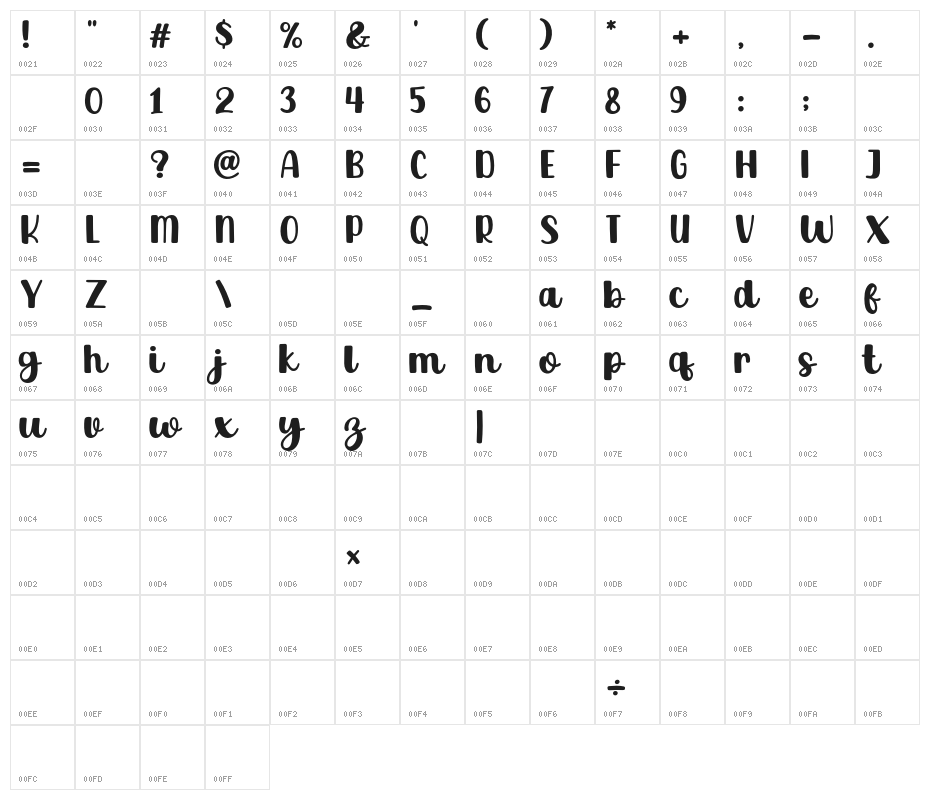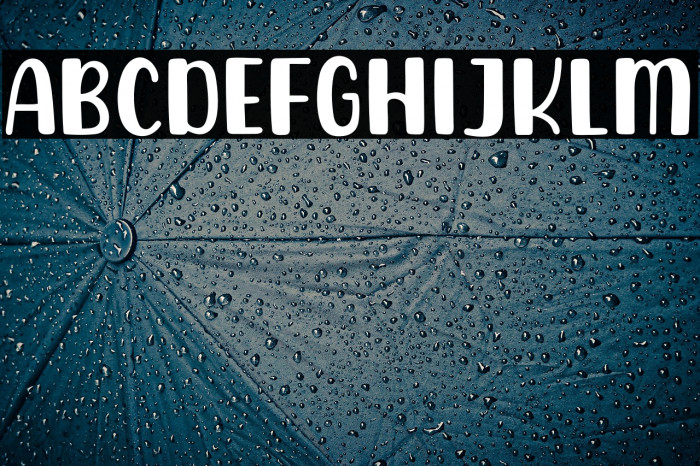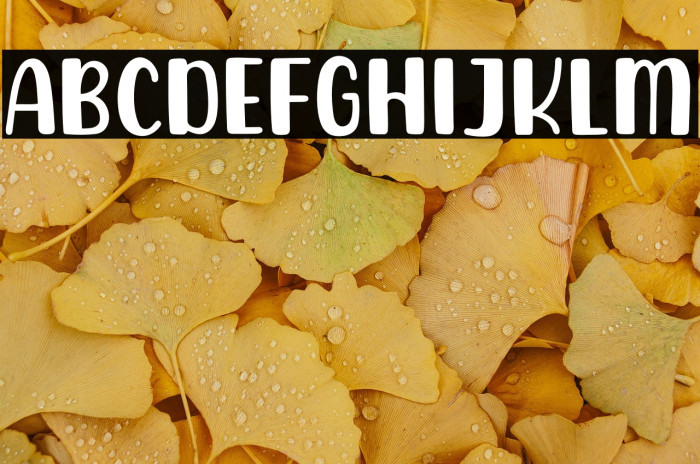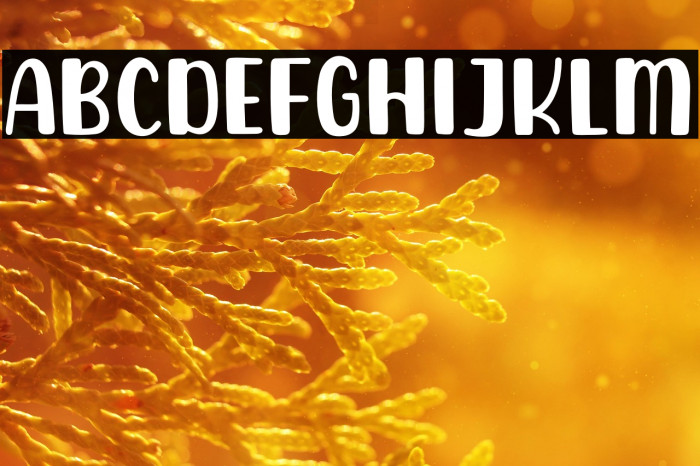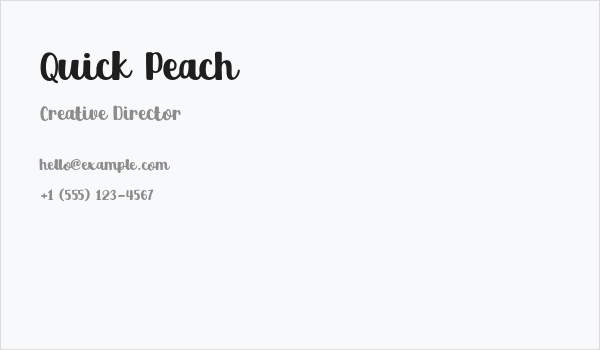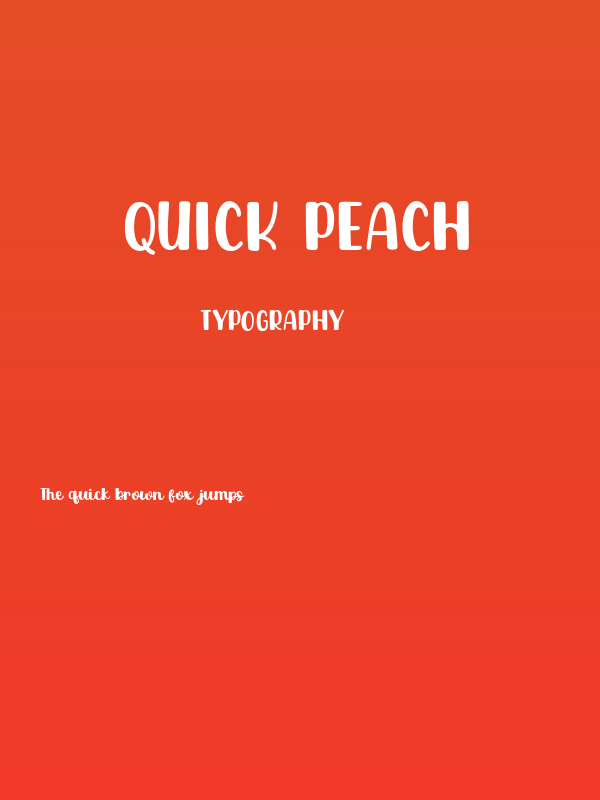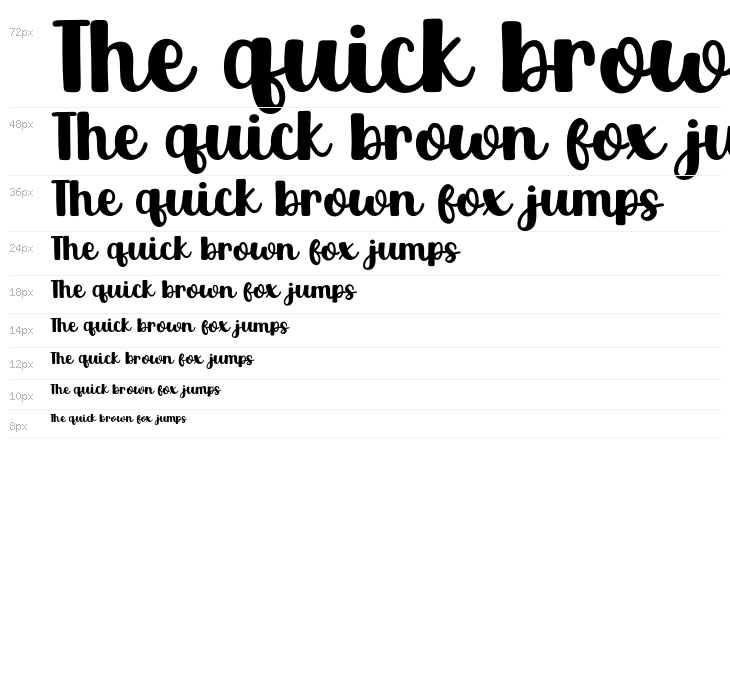
Quick Peach Font
Quick Peach Description
This font features a playful and bold script style with a hand-drawn appearance. The uppercase letters are rounded and slightly condensed, giving a friendly and approachable feel. The lowercase letters are more fluid, with some characters featuring loops and swashes that add a whimsical touch. The numbers are consistent with the overall style, maintaining the bold and rounded characteristics. Special characters are well-integrated, ensuring versatility in various design contexts. The font's thick strokes and smooth curves make it highly legible while retaining a unique charm.
| Proposed Projects | Ideal for children's books, playful branding, greeting cards, and creative posters. |